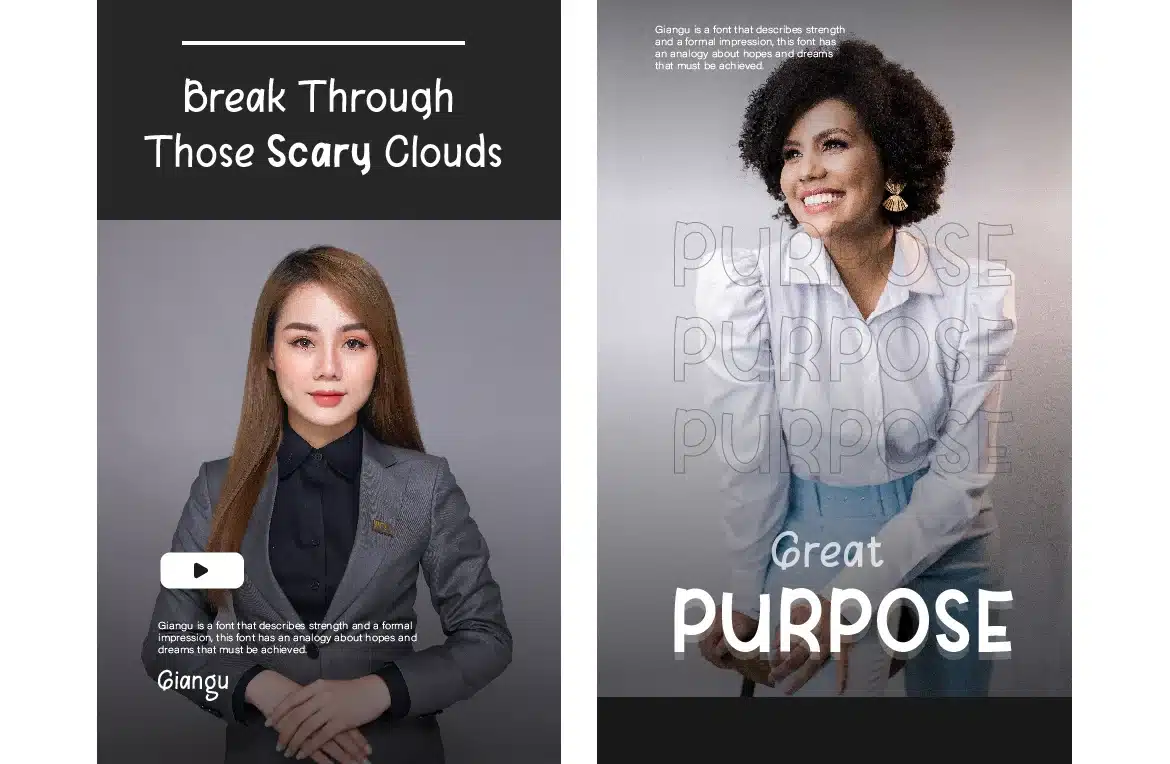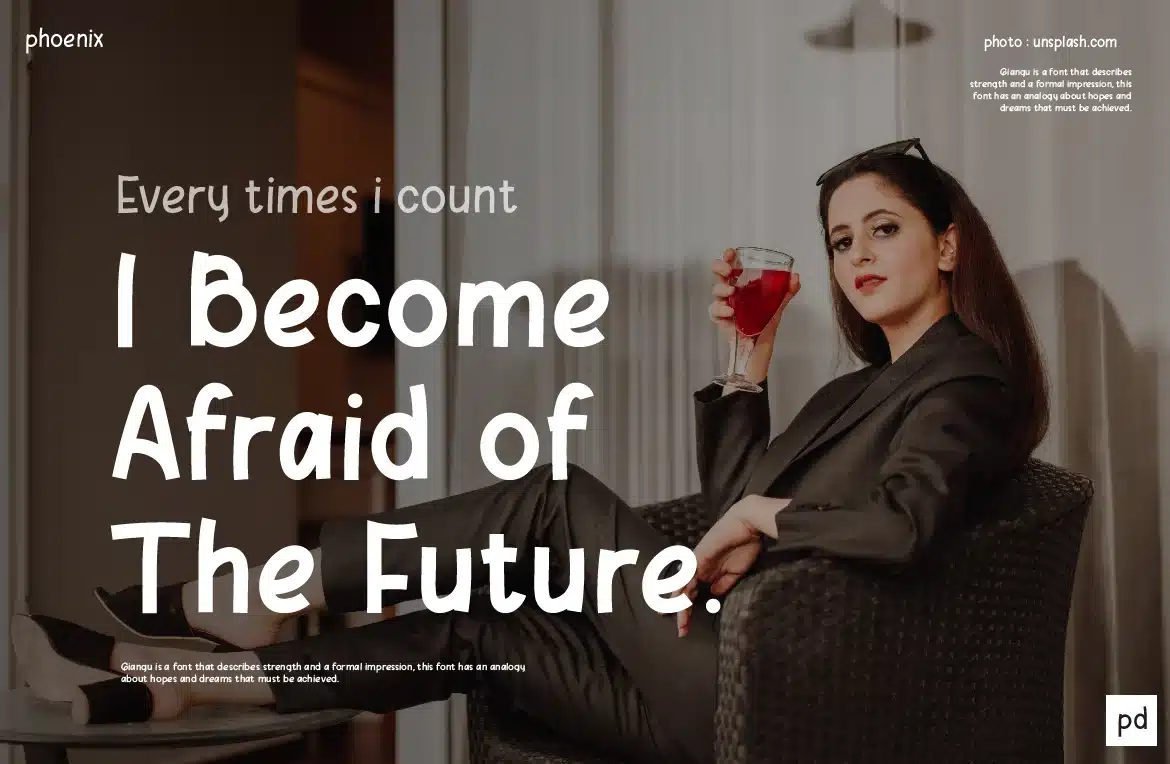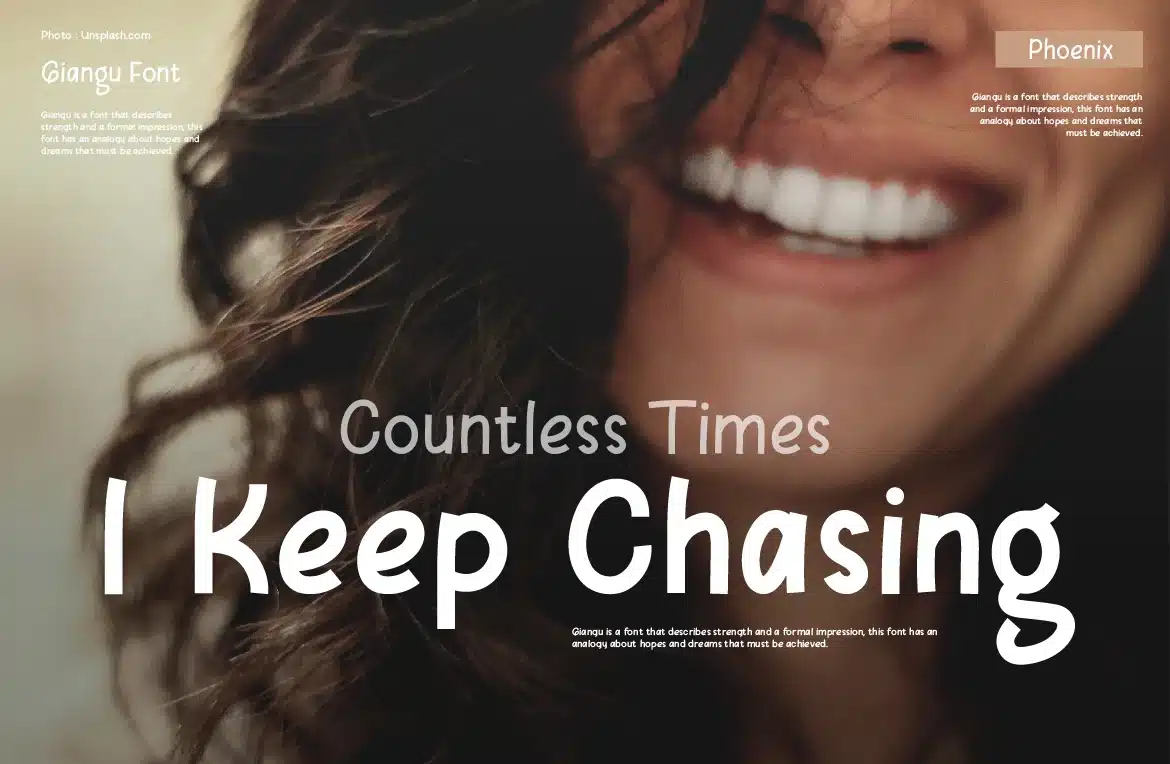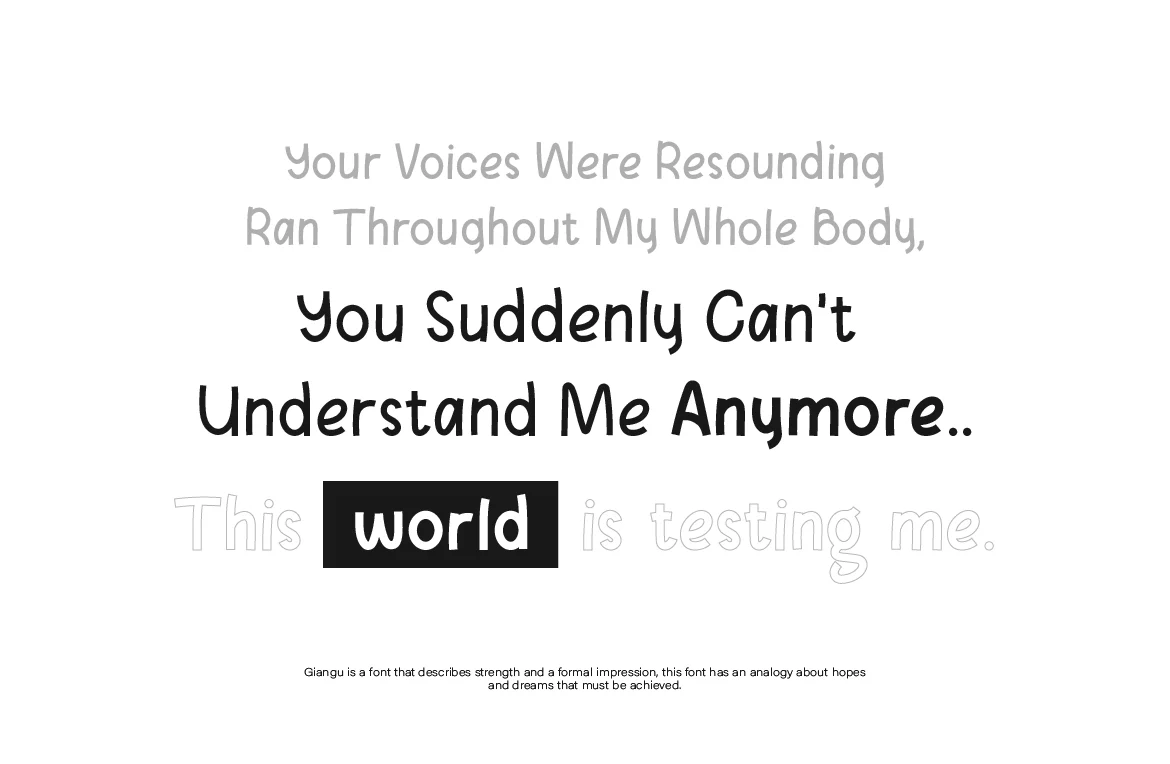
Giangu Typeface Font
Giangu is a typeface that describes the strength and a formal impression, this typeface has an analogy about hopes and dreams that must be achieved.